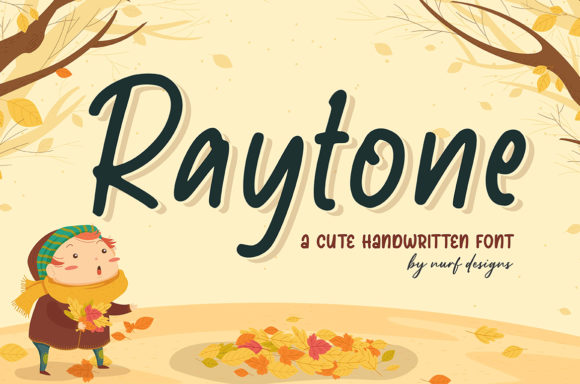
**Raytone: The Font That Will Make Your Brand Shine**
In a world where first impressions matter, your brand's image is everything. And what better way to make a lasting impression than with a font that is both eye-catching and unforgettable?
Introducing Raytone, the script font that was designed to turn heads and elevate your brand to new heights.
Raytone is a cute and delicate handwritten font that exudes charm and personality. It's perfect for adding a touch of whimsy to your projects, whether you're designing logos, social media graphics, or even invitations.
But don't let its playful appearance fool you. Raytone is also incredibly versatile, making it perfect for a wide range of branding applications. Its cheerful style will add a touch of fun to any project, while its clean lines and easy readability ensure that your message will always be clear and concise.
So if you're looking for a font that will help your brand stand out from the crowd, look no further than Raytone. With its unique combination of charm, versatility, and readability, Raytone is the perfect font to take your brand to the next level.
**Here are just a few of the ways you can use Raytone to transform your brand:**
* Create eye-catching logos that will leave a lasting impression
* Design social media graphics that will get your followers talking
* Make your invitations and announcements stand out from the crowd
* Add a touch of whimsy to your website or blog